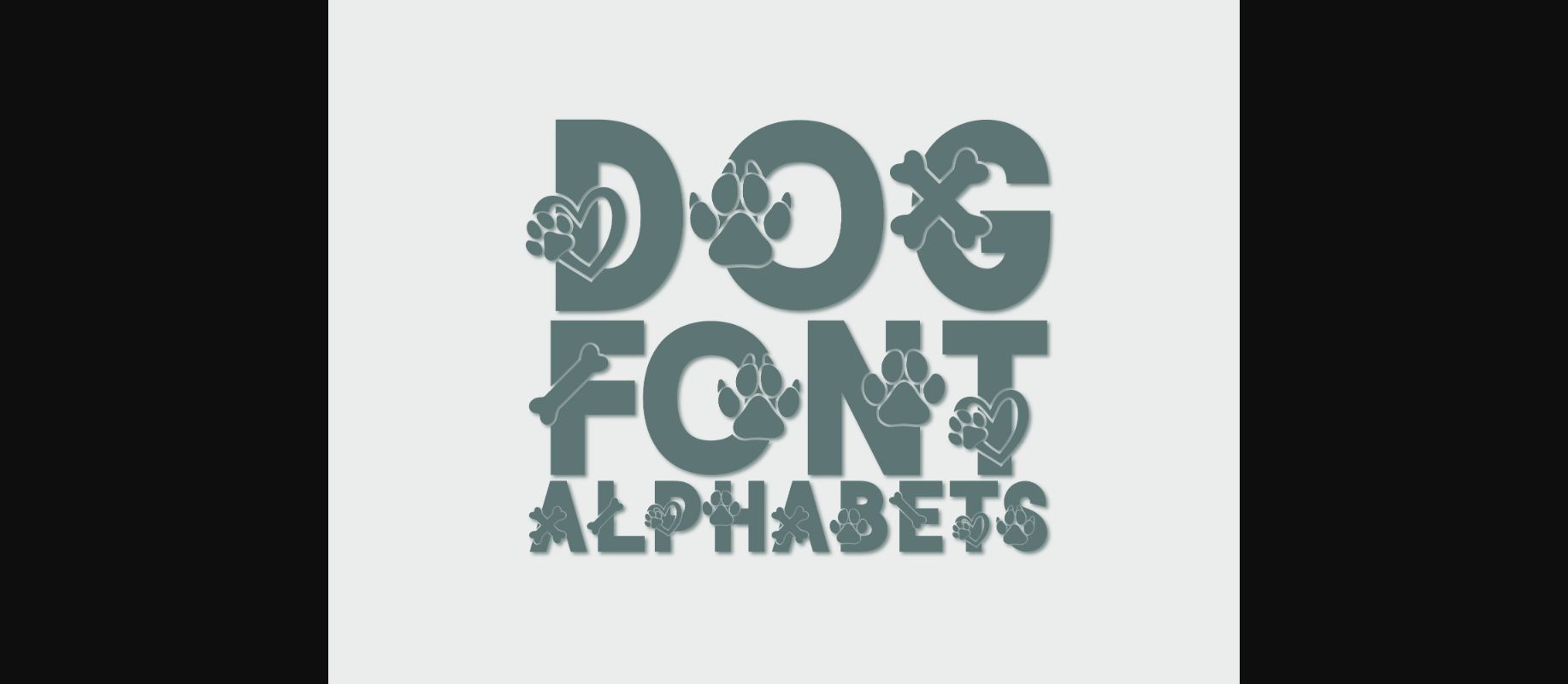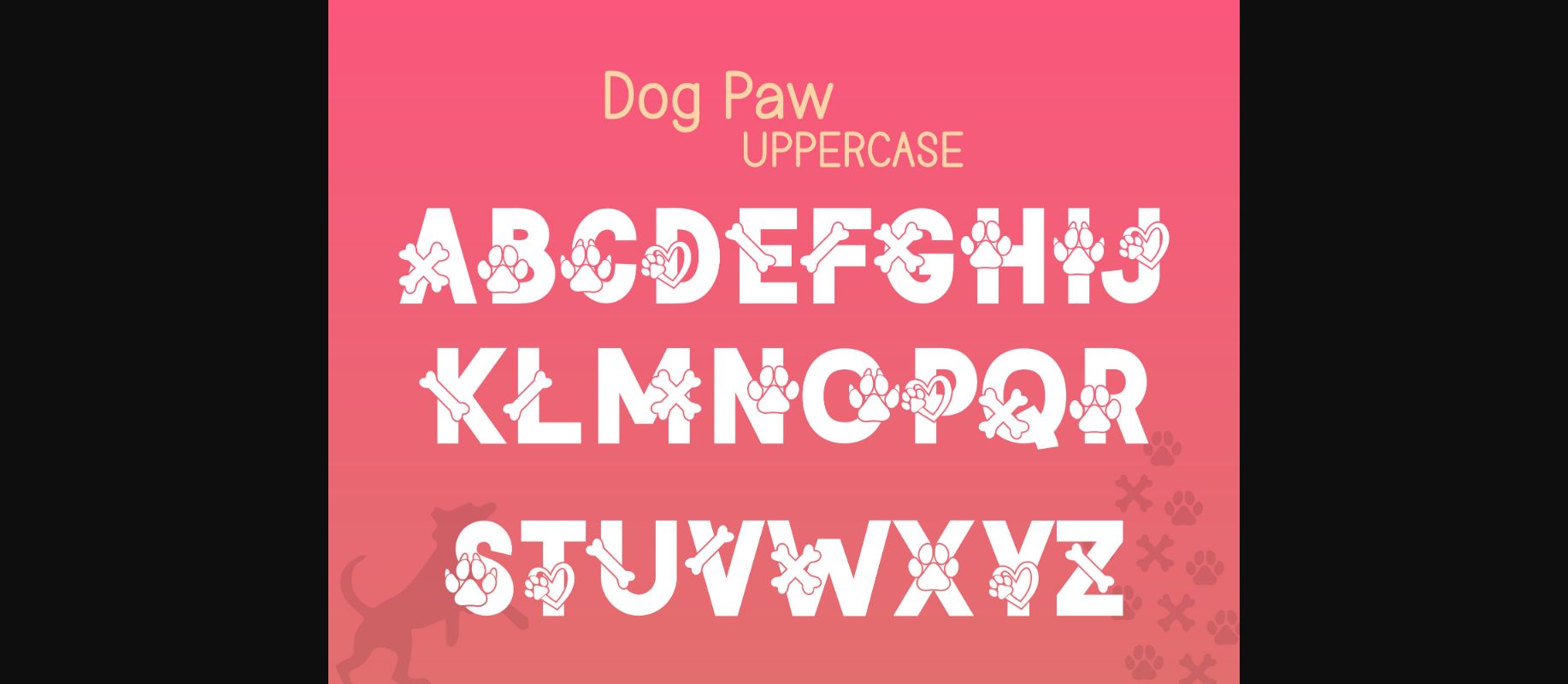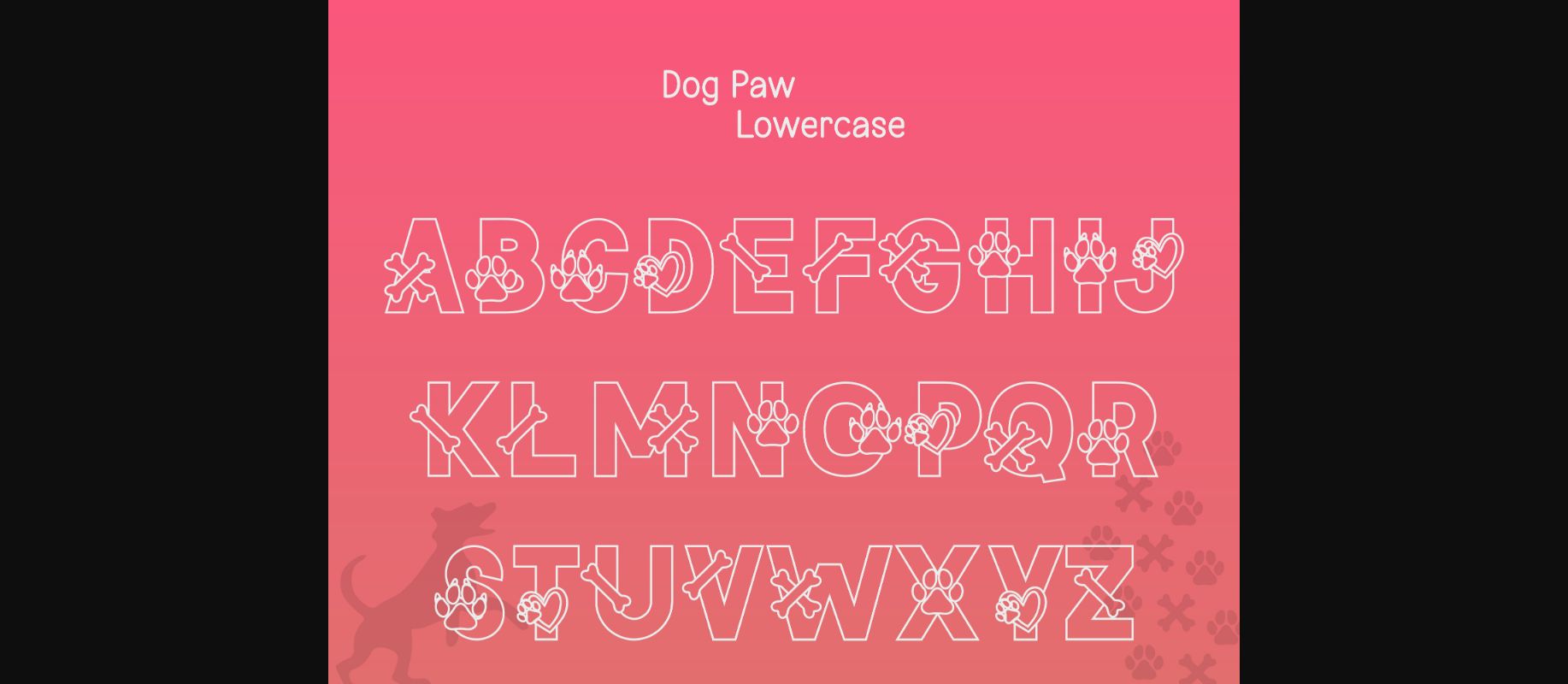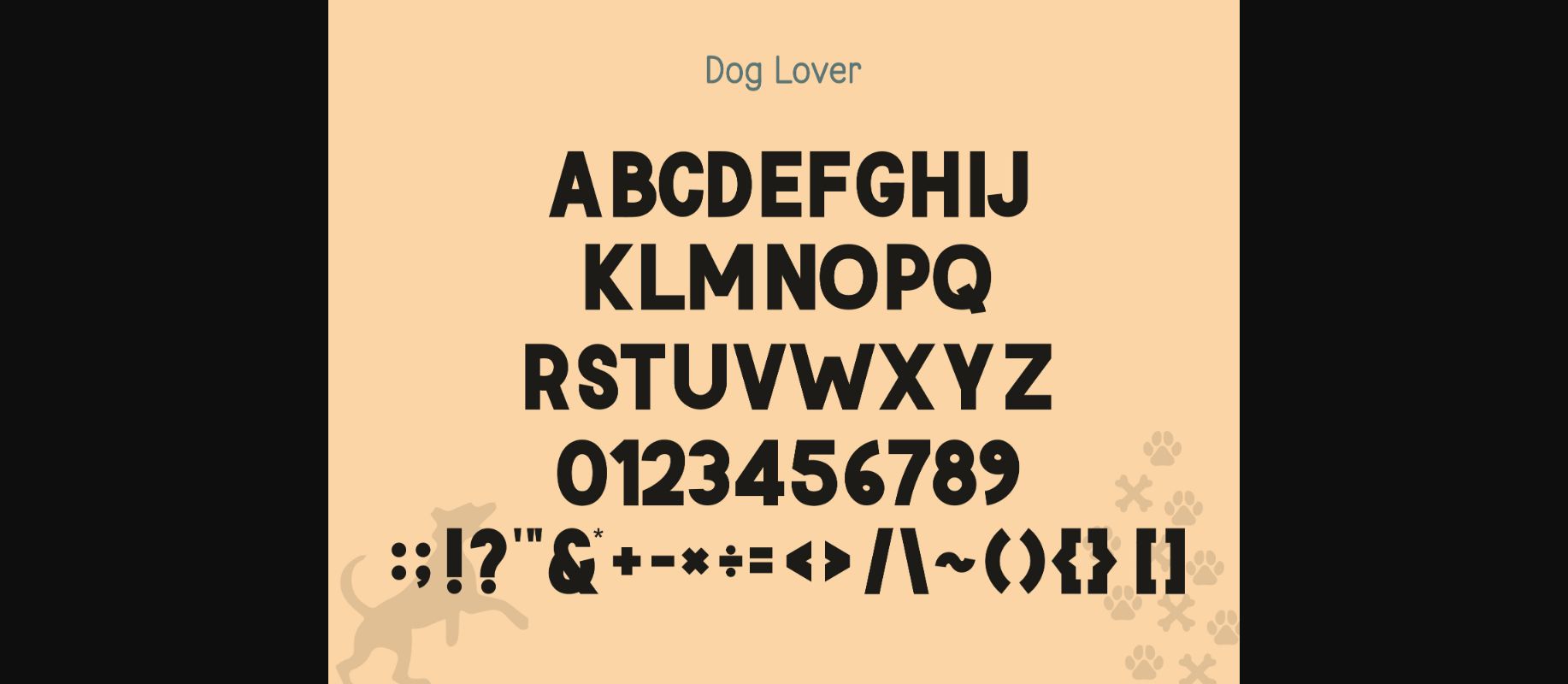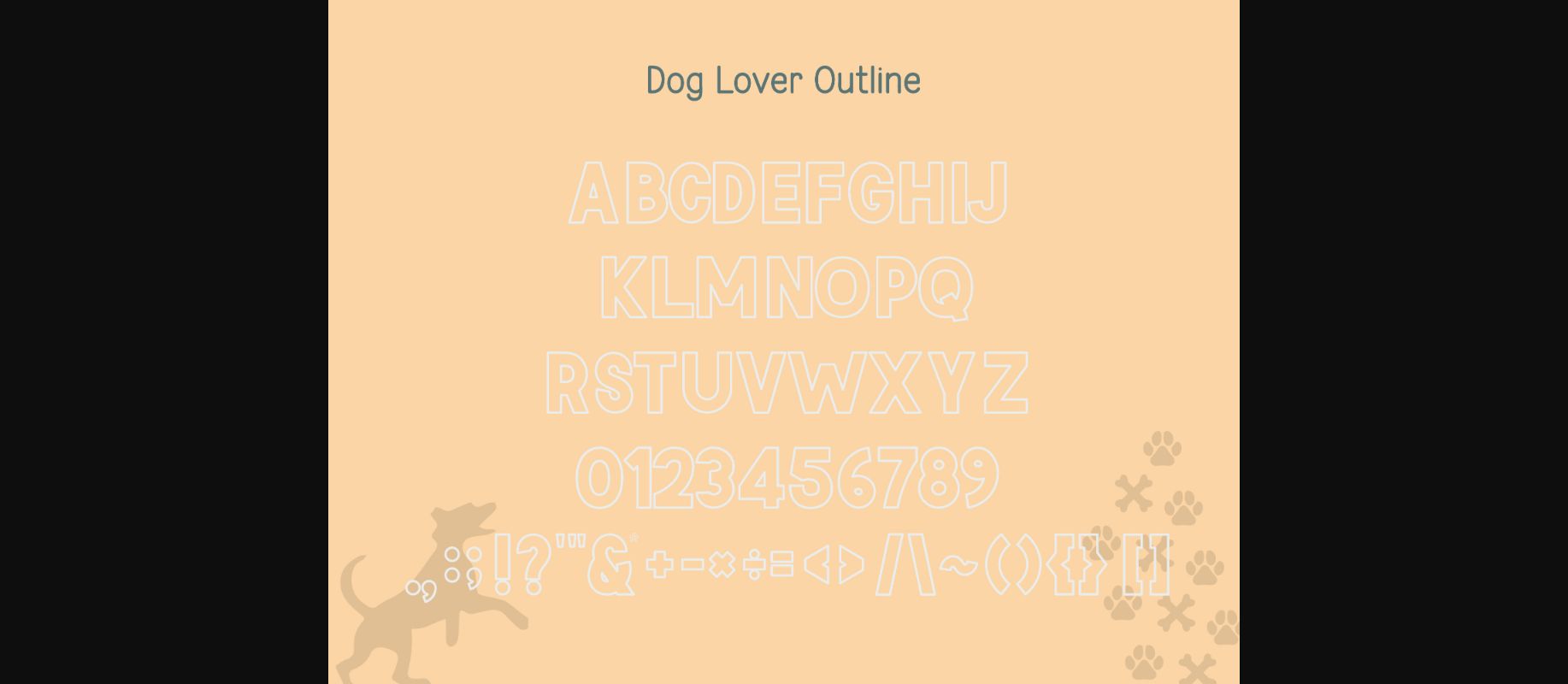
About Dog Font
Dog is a delightful and whimsical decorative font that brings playful charm to your designs. With its quirky letter shapes and endearing details, Dog adds a touch of character and joy. Perfect for projects that demand a lighthearted and friendly aesthetic, Dog is sure to evoke smiles and creativity.